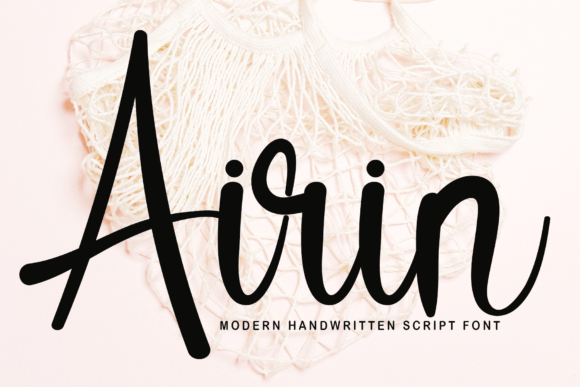
Dive into the world of stunning calligraphy with Airin Font, a charming handwritten font that captures the essence of elegance and authenticity. Its delicate strokes and graceful curves add a touch of refinement to any design project.
Embark on a creative journey with Airin Font and let your imagination soar. This versatile font family is the perfect companion for a myriad of projects, from heartfelt greeting cards to captivating headlines. Its wide spectrum of applications makes it a must-have for any designer seeking a touch of sophistication.
With its flowing lines and organic feel, Airin Font breathes life into your designs. It effortlessly adds a natural and personal touch to posters, invitations, logos, and more. Its timeless appeal ensures that your creations will remain captivating and relevant for years to come.